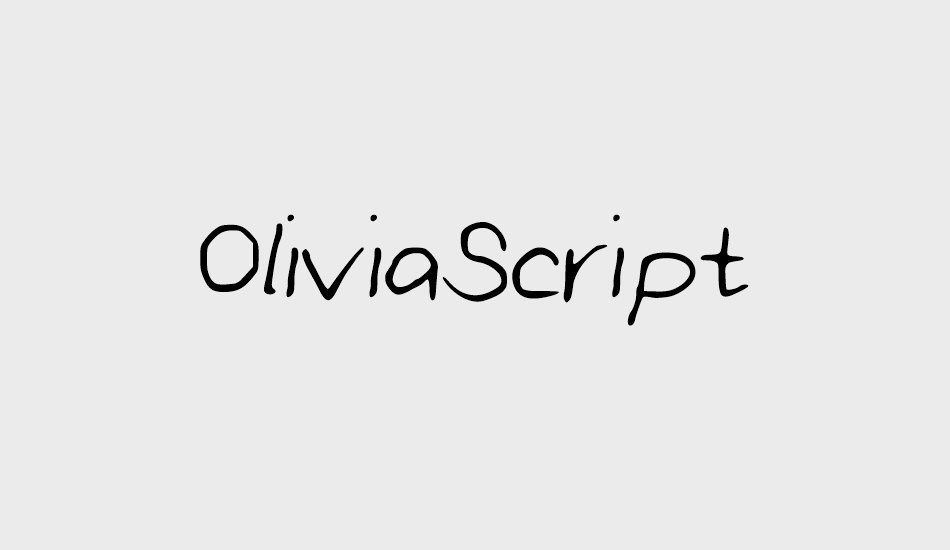
The two variations of ywft olivia work well on their own or together for design projects of all kinds, including displays, signage, posters, book covers and children's book.
It's a modern calligraphic font with monoline handwriting and sophisticated flow.
Similar Free Fonts And Alternative For Ywft Olivia Script. The two variations of ywft olivia work well on their own or together for design projects of all kinds, including displays, signage, posters, book covers and children's book. Only fonts with accents euro. Thousands of designers (famous or not) use the image font detection system to find a font or similar free fonts from an image. Votes, rated based on results identification. Download olivia script free for free today. Complete with 351 glyphs, you can use this font for multiple purposes such as wedding invitations, greeting cards, posters, wall hangings, gifts and. Complete with 351 glyphs, you can use this font for multiple purposes such as wedding invitations, greeting cards, posters, wall hangings. A modern calligraphy typeface, olivia is both sophisticated and graceful and is an exclusive from the font bundles store. A modern calligraphy typeface, olivia is both sophisticated and graceful and is an exclusive from the font bundles store. As well, you are going to love our website and what we can provide. Olivia script € by olivia schoeb. This exclusive font is available to download for free with our premium license for commercial use. A modern calligraphy typeface, olivia is both sophisticated and graceful and is an exclusive from the font bundles store. If you recognize the font from the samples posted here don't be shy and help a fellow designer. Ywft olivia script font 2.99/5.
Similar Free Fonts And Alternative For Ywft Olivia Script. Thousands of designers (famous or not) use the image font detection system to find a font or similar free fonts from an image. The two variations of ywft olivia work well on their own or together for design projects of all kinds, including displays, signage, posters, book covers and children's book. If you recognize the font from the samples posted here don't be shy and help a fellow designer. Ywft olivia script font 2.99/5. A modern calligraphy typeface, olivia is both sophisticated and graceful and is an exclusive from the font bundles store. As well, you are going to love our website and what we can provide. Only fonts with accents euro. Complete with 351 glyphs, you can use this font for multiple purposes such as wedding invitations, greeting cards, posters, wall hangings, gifts and. This exclusive font is available to download for free with our premium license for commercial use. A modern calligraphy typeface, olivia is both sophisticated and graceful and is an exclusive from the font bundles store. Download olivia script free for free today. Votes, rated based on results identification. A modern calligraphy typeface, olivia is both sophisticated and graceful and is an exclusive from the font bundles store. Complete with 351 glyphs, you can use this font for multiple purposes such as wedding invitations, greeting cards, posters, wall hangings. Olivia script € by olivia schoeb.
Olivia Script Free Fonts Script Handwritten Pixelify Net. Download olivia script free for free today. Complete with 351 glyphs, you can use this font for multiple purposes such as wedding invitations, greeting cards, posters, wall hangings, gifts and. Ywft olivia script font 2.99/5. This exclusive font is available to download for free with our premium license for commercial use. Complete with 351 glyphs, you can use this font for multiple purposes such as wedding invitations, greeting cards, posters, wall hangings. Olivia script € by olivia schoeb. The two variations of ywft olivia work well on their own or together for design projects of all kinds, including displays, signage, posters, book covers and children's book. Votes, rated based on results identification. A modern calligraphy typeface, olivia is both sophisticated and graceful and is an exclusive from the font bundles store. A modern calligraphy typeface, olivia is both sophisticated and graceful and is an exclusive from the font bundles store. A modern calligraphy typeface, olivia is both sophisticated and graceful and is an exclusive from the font bundles store. If you recognize the font from the samples posted here don't be shy and help a fellow designer. Thousands of designers (famous or not) use the image font detection system to find a font or similar free fonts from an image. Only fonts with accents euro. As well, you are going to love our website and what we can provide.
It's a modern calligraphic font with monoline handwriting and sophisticated flow. Olivia script font viewed 678 times and downloaded 15 times. Olivia an elegant monoline script font. Serrona script font duo free download. The two variations of ywft olivia work well on their own or together for design projects of all kinds, including displays, signage, posters, book covers and children's book. 1 style 4.7 426 downloads. Olivia script is free for personal use only. This font has 1 styles available ( oliviascript). It's a modern calligraphic font with monoline handwriting and sophisticated flow. Complete with 351 glyphs, you can use this font for multiple purposes such as wedding invitations, greeting cards, posters, wall hangings, gifts and.